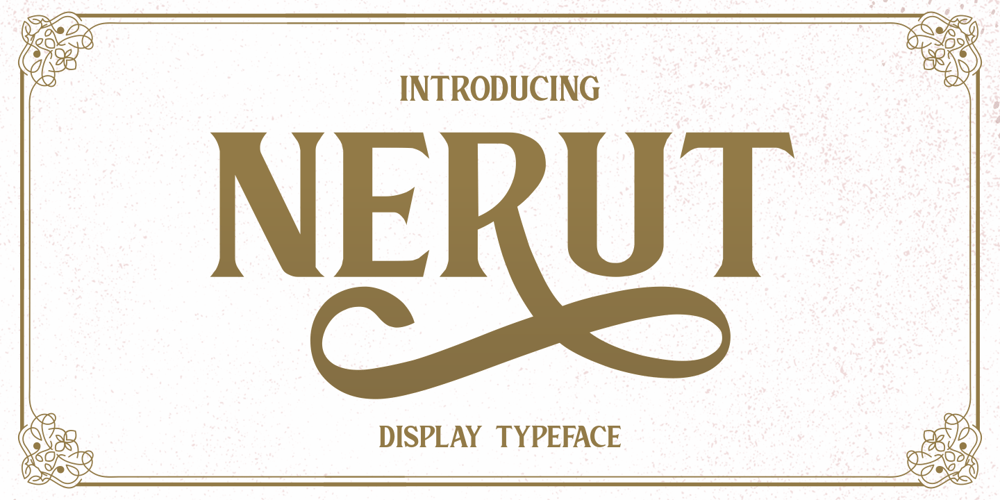
Nerut Font Family was designed by Riyadh Rahman and published by Ergibi Studio. Nerut contains 1 styles and family package options. “SULTAN” is a serif font. It has a vintage form with the addition of modern decorative and minimalist shape. Fonts consist of special uppercase letters and alternate characters. fonts are multilingual support and are perfect for logos, branding, mockups, t-shirts, branding, and various needs that want this vintage formI hope you like our font Ergibi Studio